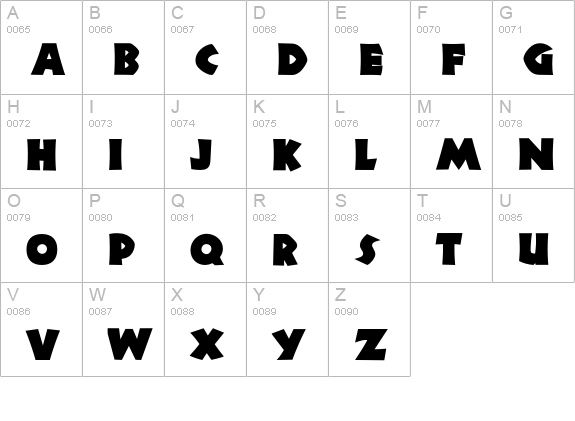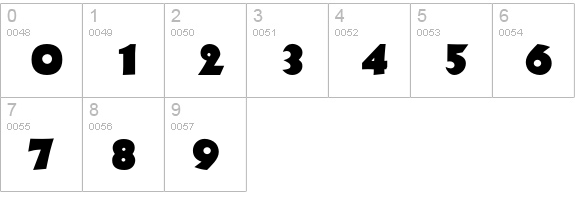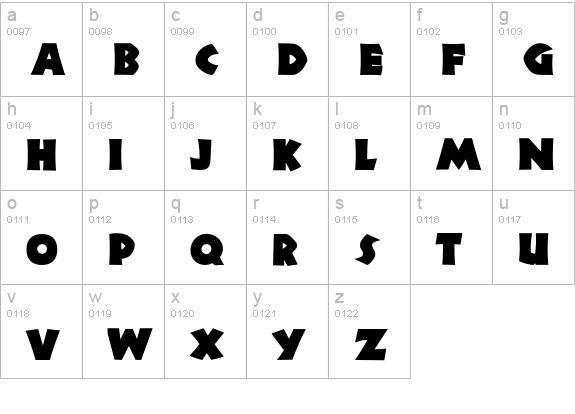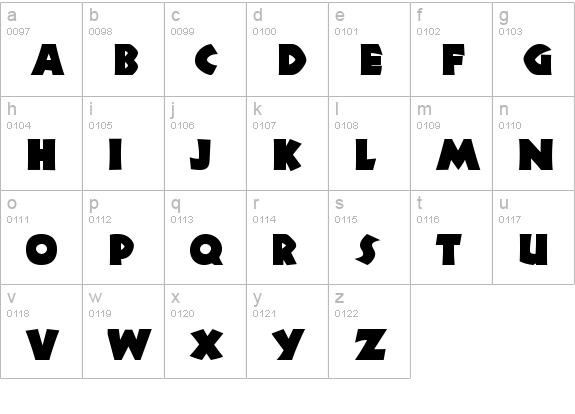
OPTINeuland-Black Font Details
OPTINeuland-Black is a maximum-weight, dramatic variant in the OPTINeuland typeface family \xE2\x80\x94 well suited to maximum-impact headlines, posters, and packaging.
OPTINeuland-Black font is a stunning and bold typeface that exudes power and modernity. Its thick, sturdy letterforms make a strong impact in any design project, whether it's for headlines, logos, or branding materials. The clean lines and sharp edges give this font a contemporary and edgy feel, perfect for making a statement. The best part is that OPTINeuland-Black font is available for free download at FontsMarket.com. This means you can easily access and use this striking font in your creative projects without any cost. Don't miss out on the opportunity to elevate your designs with the impactful presence of OPTINeuland-Black font. Download it today and unleash its bold potential in your next project.